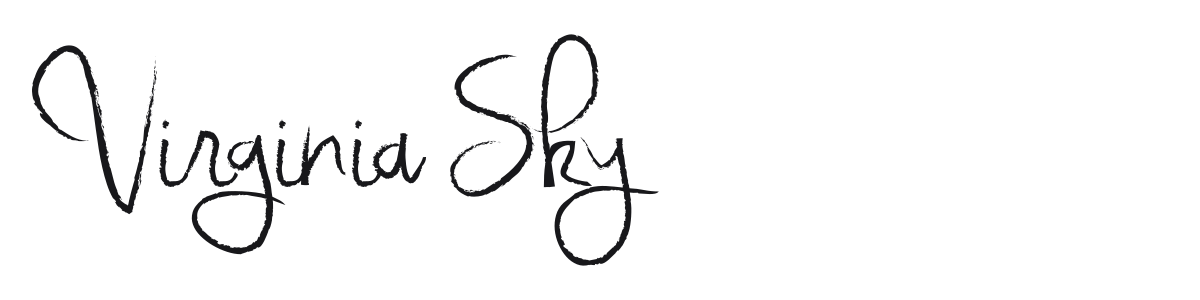
Virginia Sky
Virginia Sky is a casual handwritten script with the loose, natural feel of a quick pen note. Its flowing connections and subtle ink-pressure irregularities keep it feeling genuine rather than mechanical. A go-to for projects that need warmth and an unpretentious personal touch.